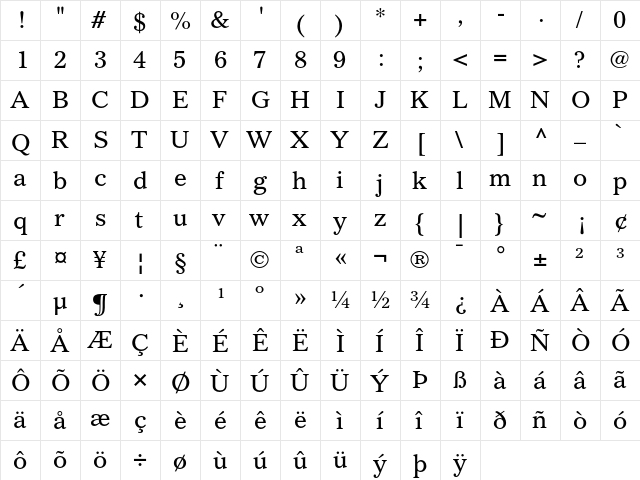
Gazette LH Roman
Design Context for Gazette LH Typeface
Gazette LH offers clean, dependable letterforms without strong stylistic allegiance, making it a practical choice for designers who need flexibility.
Pro Tip: Use Gazette LH in both headline and body roles to test its range before committing to a single application.